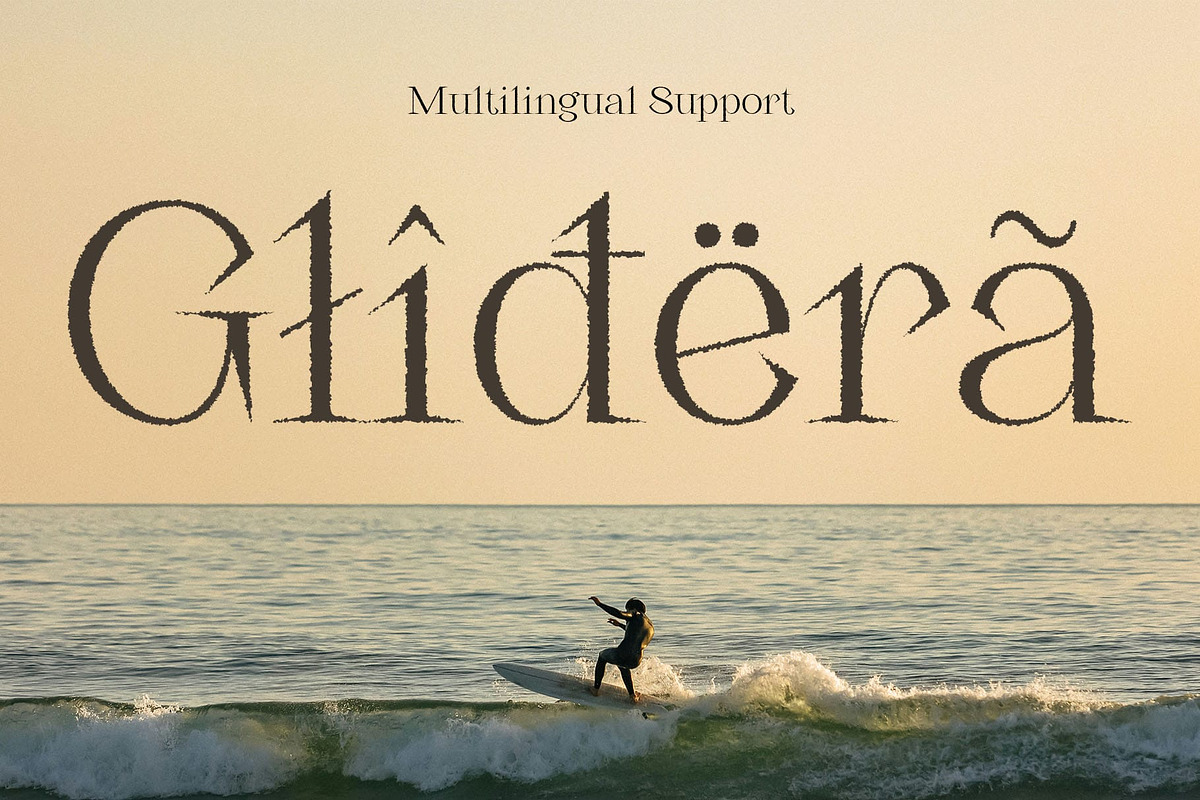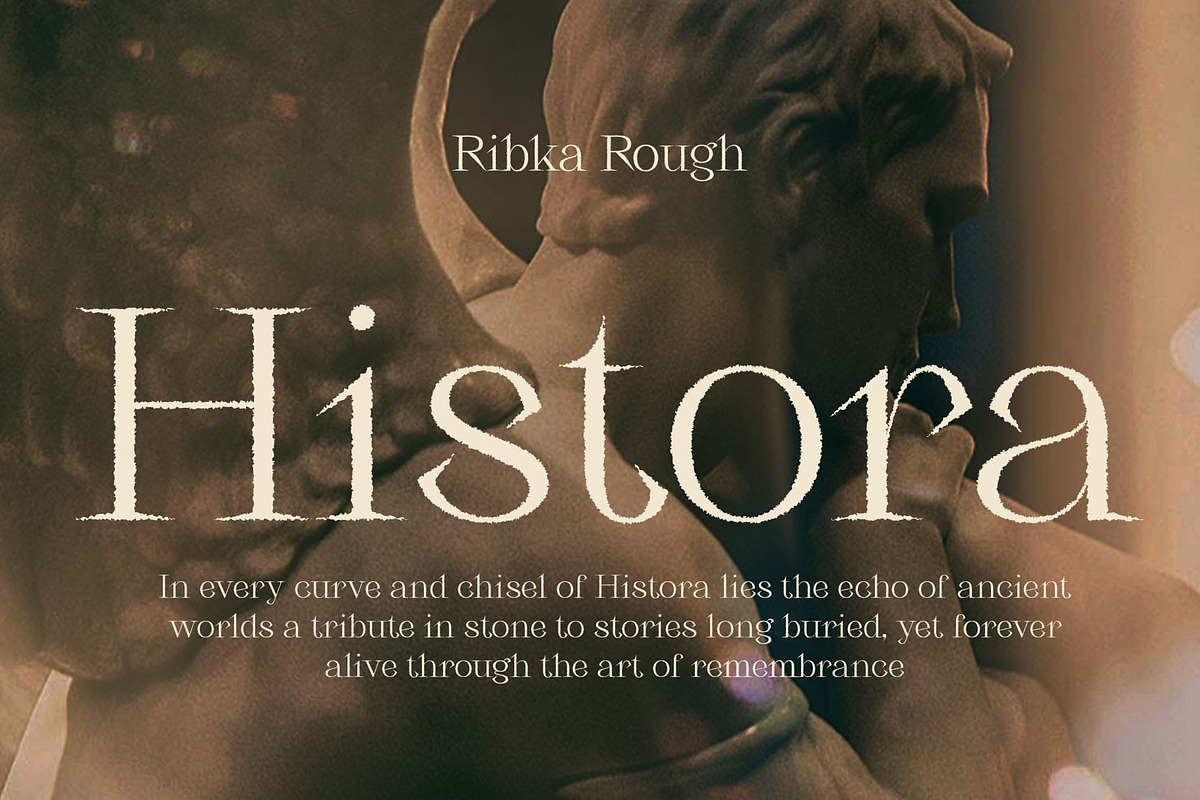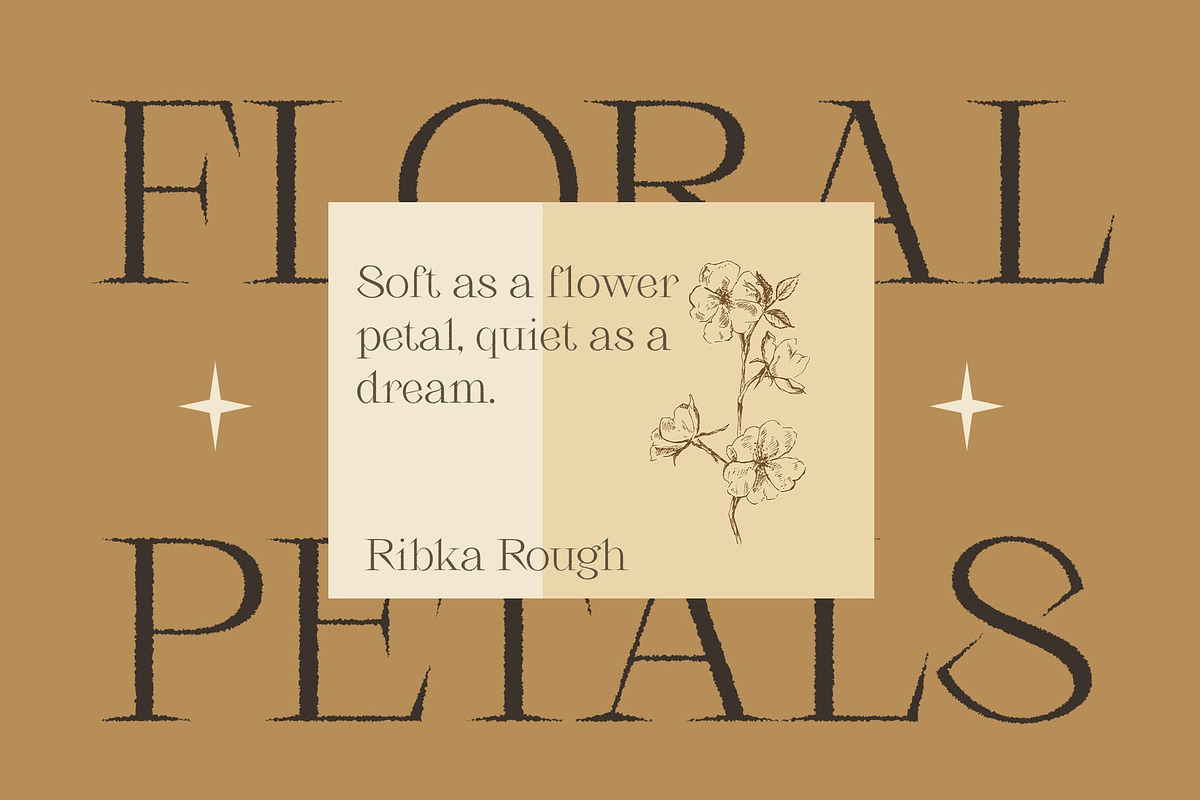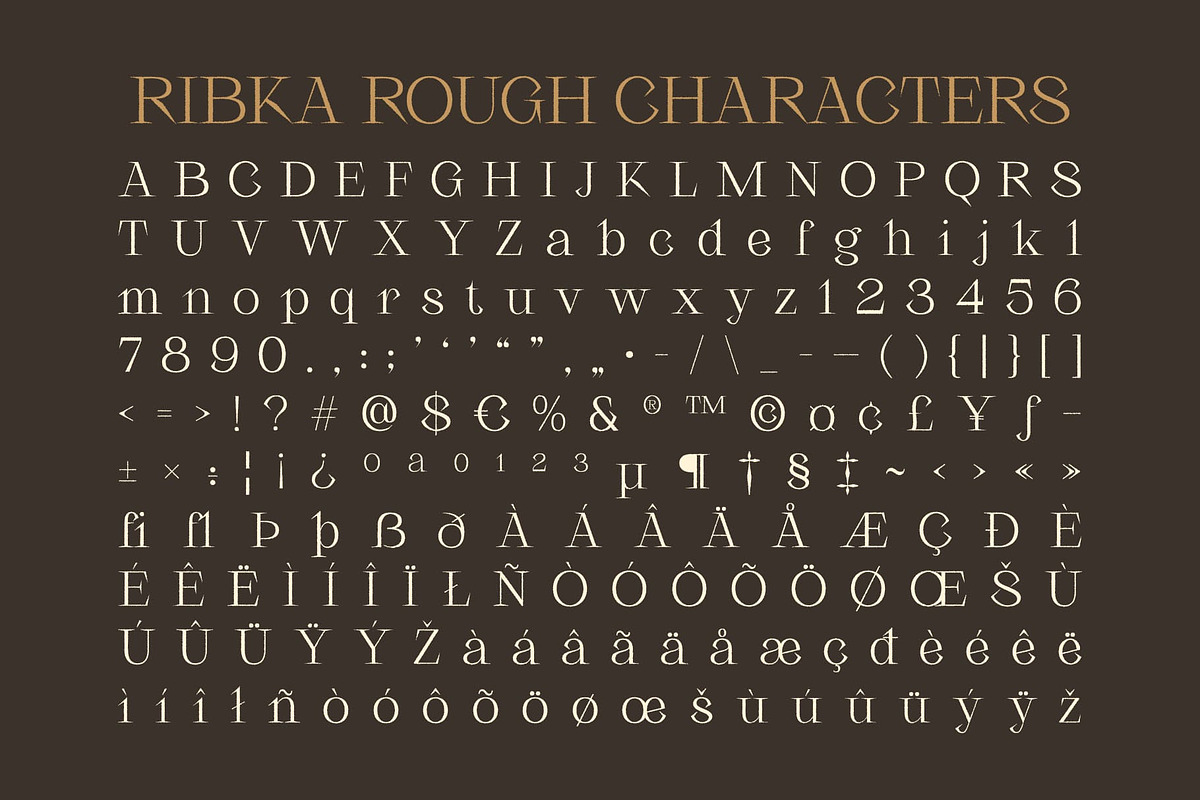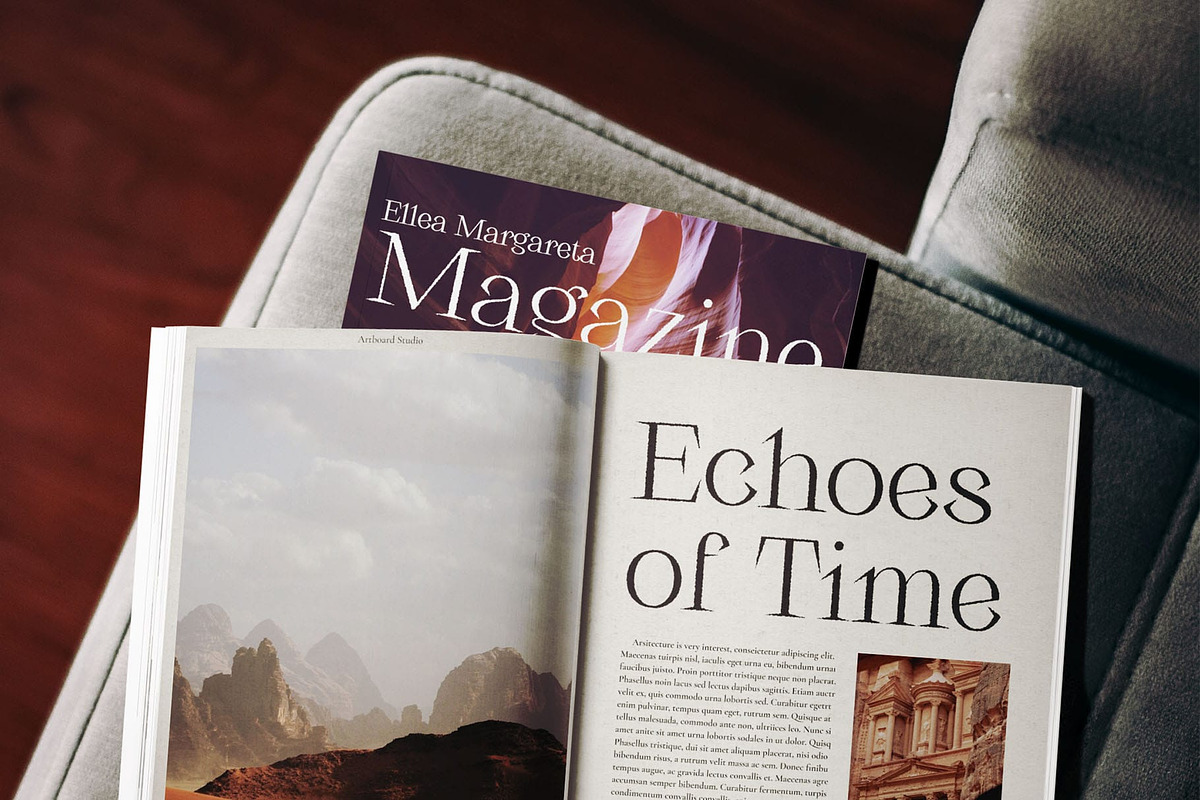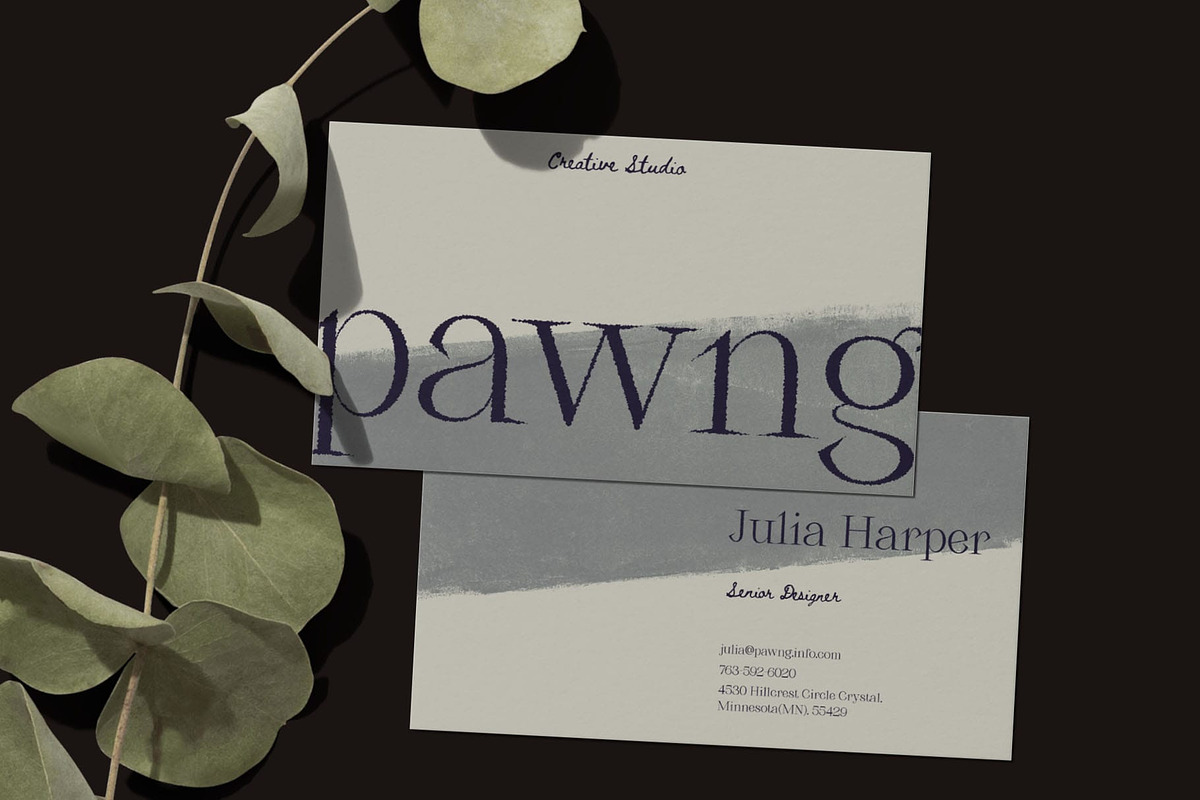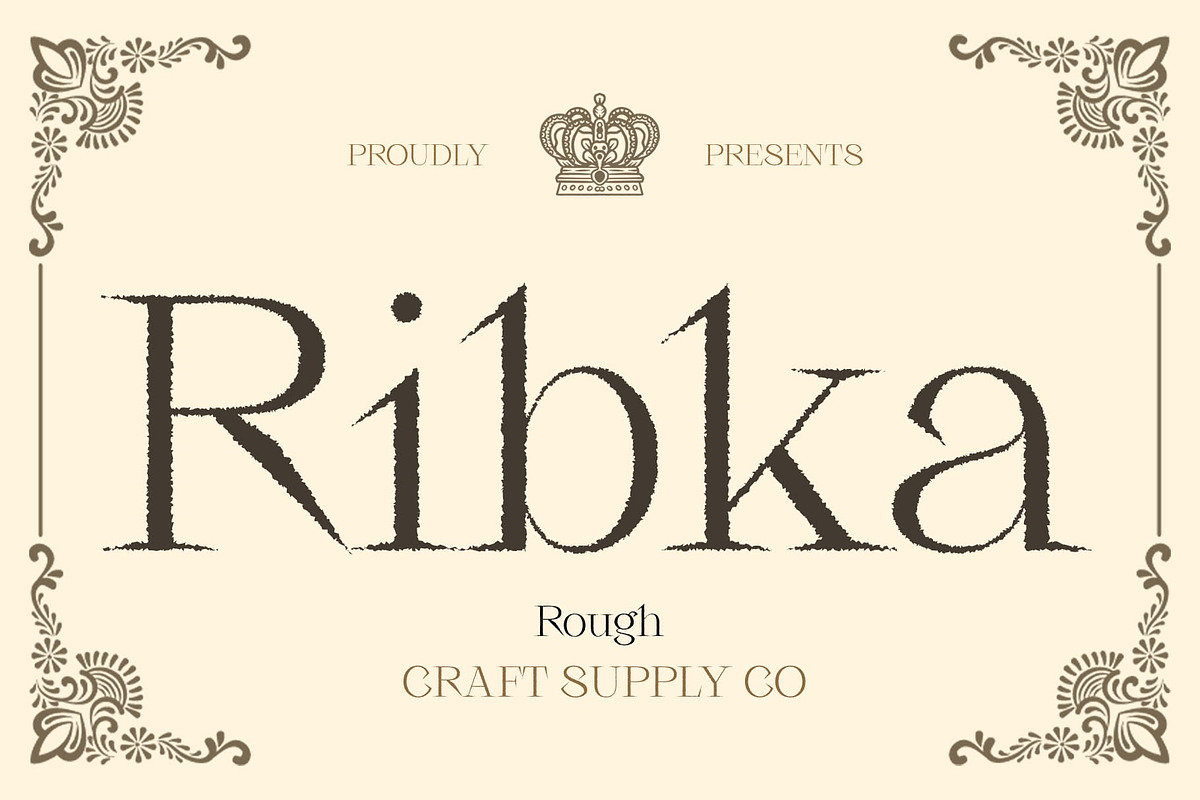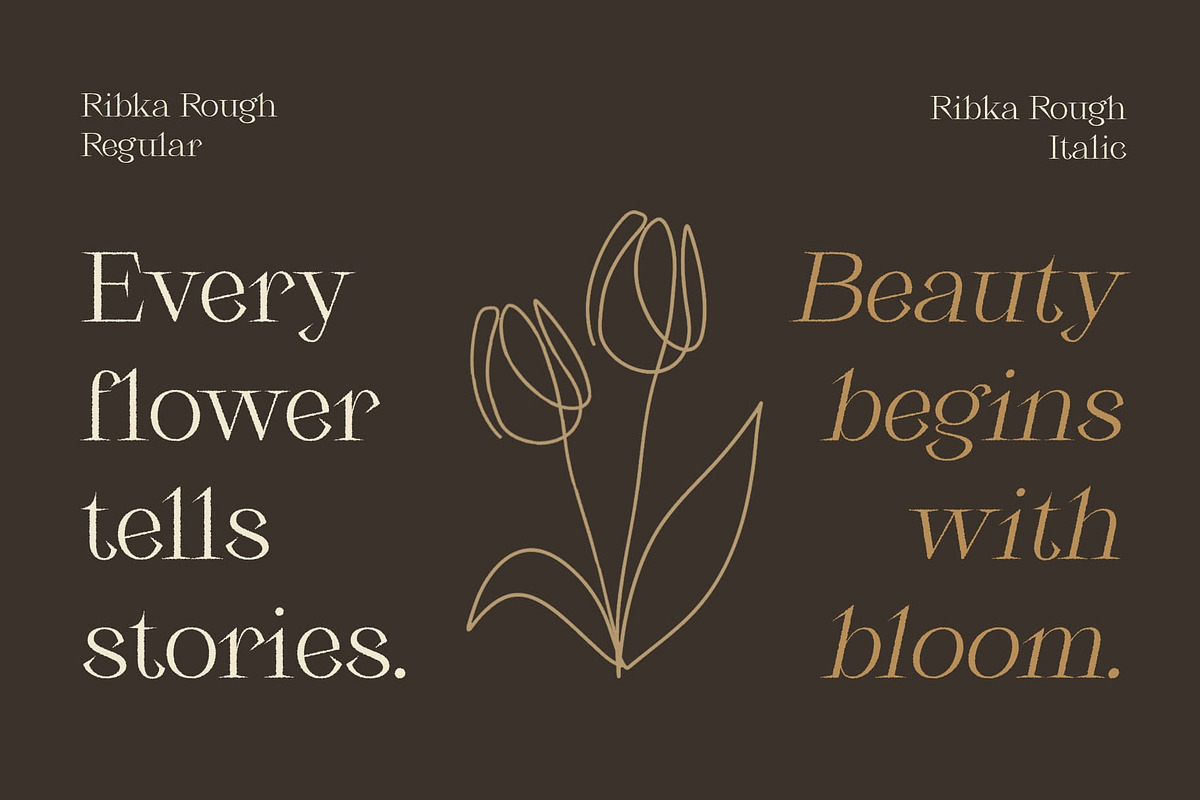
Ribka Rough
Ribka Rough Font – Refined Elegance with Textured Charm
Modern Serif Font with Rough Texture Ribka Rough is a modern serif font that blends minimalist elegance with artistic texture. Featuring clean lines, balanced proportions, and subtle rough detailing, it brings sophistication with a handcrafted touch—ideal for visual projects that seek to balance refinement and creative personality.
Minimalist Structure with Elegant Form At its core, Ribka Rough maintains a structured, contemporary serif style. The sleek, minimalist forms create a polished and professional appearance, making it well-suited for high-end designs. Its proportional letterforms ensure clarity and readability while delivering an air of sophistication.
Subtle Rough Effect for Added Character A light rough texture adds gentle visual interest to each letterform, introducing a humanized, tactile quality without overpowering the design. This subtle effect enhances its charm, making Ribka Rough stand out in creative contexts while preserving its clean and elegant look.
Versatile for Elegant and Artistic Applications Ribka Rough’s unique blend of modernism and artisanal flair makes it ideal for premium branding, elegant editorial layouts, packaging design, and creative portfolios. It supports a broad range of expressions—from refined luxury to modern artistry.
Balance of Clean and Expressive Whether used in headlines or branding systems, Ribka Rough offers a compelling contrast between smooth structure and textured individuality. It’s the perfect serif for designers seeking beauty, clarity, and a touch of expressive detail in their typography.